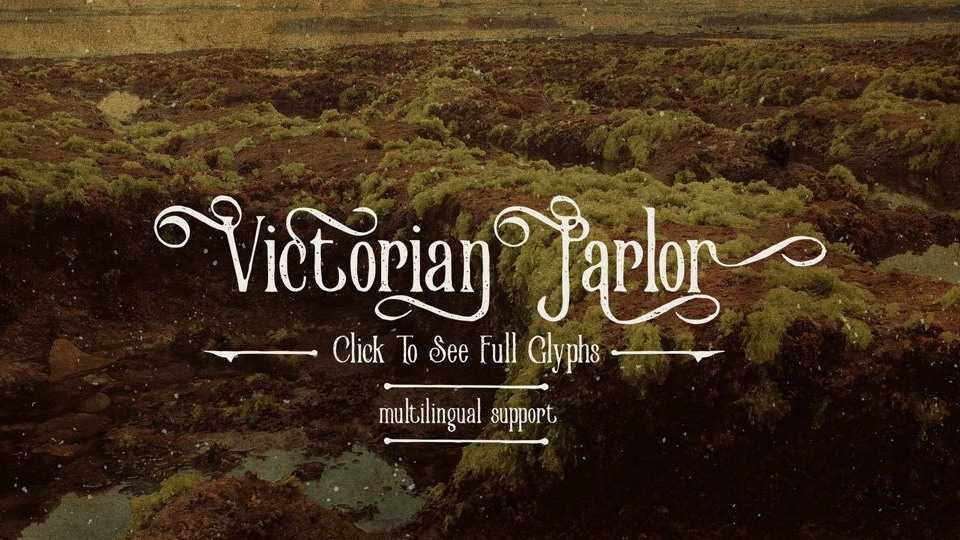
Download Victorian Parlor font, a traditional victorian decoration typeface based on clean looks and ink textured. Vintage font painted manually one by one with very detail and consistency.
Designer: Burntilldead Typefoundry